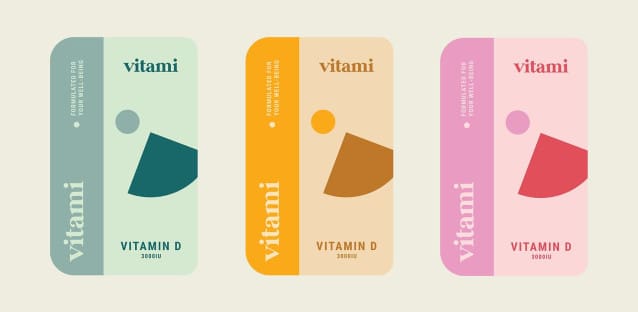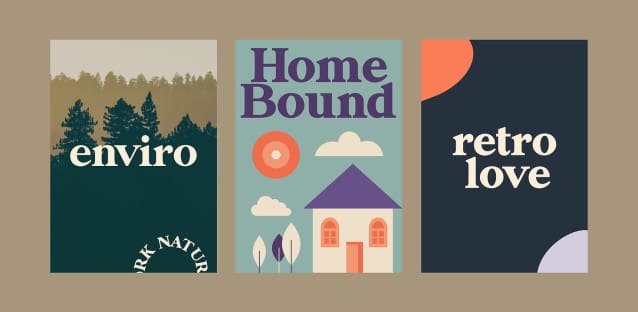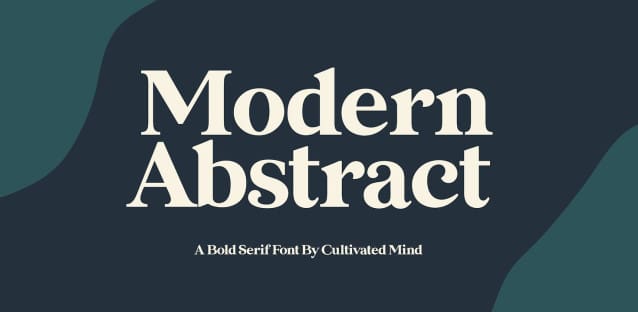
Modern Abstract Font
Modern Abstract Font by Cultivated Mind, is a bold serif font with a retro vibe. ModernAbstract comes in a regular and bold weight. Try using ModernAbstract for branding, headline use, film, magazines, websites, packaging, invitations and weddings.